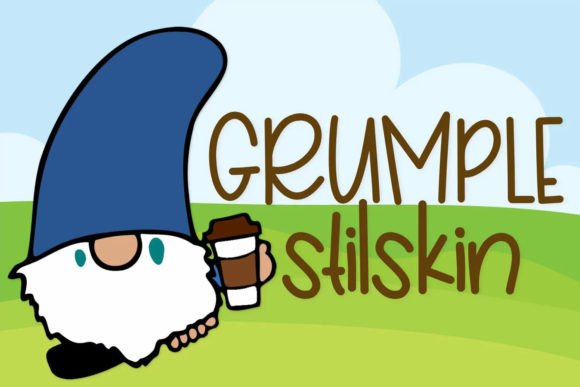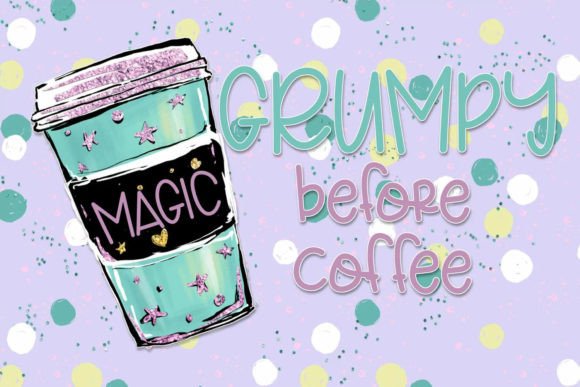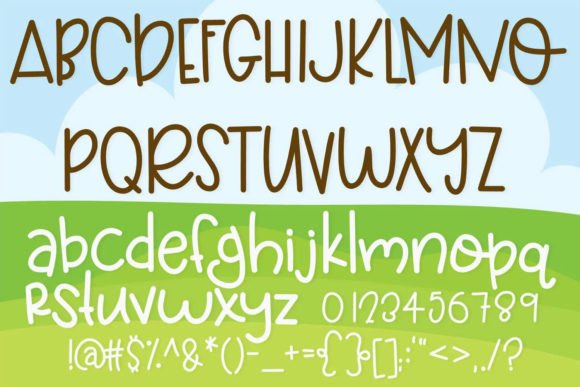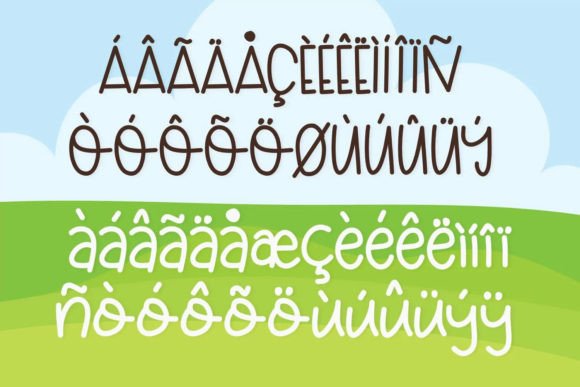
Grumplestilskin Font
About Grumplestilskin Font
Introducing Grumplestilskin, a quirky and charming handwritten font designed to bring a unique touch to your creative projects. Grumplestilskin offers versatility, allowing you to use it with all caps or lowercase, and features adorable connecting letters for an authentic handwritten feel. With cleaned nodes for cutting, Grumplestilskin is ready to add a playful and distinctive touch to your next project.
The quirky nature of Grumplestilskin makes it stand out, bringing a sense of whimsy and character to your designs. Whether you’re working on digital projects or physical creations, this font adds a playful and handwritten aesthetic that is sure to captivate.
The option to use Grumplestilskin with all caps or lowercase provides flexibility, allowing you to experiment with different looks based on your design needs. The adorable connecting letters contribute to the overall charm, making it a delightful choice for a variety of applications.
Grumplestilskin’s cleaned nodes ensure that it is suitable for cutting, making it a practical choice for those using cutting machines in their creative processes. This feature enhances its usability across different projects, from paper crafts to digital designs.
In summary, Grumplestilskin is more than just a font; it’s a design tool that brings quirkiness and versatility to your projects. Let Grumplestilskin be the font that adds a playful and handwritten feel to your next project, making it stand out with its distinctive charm.